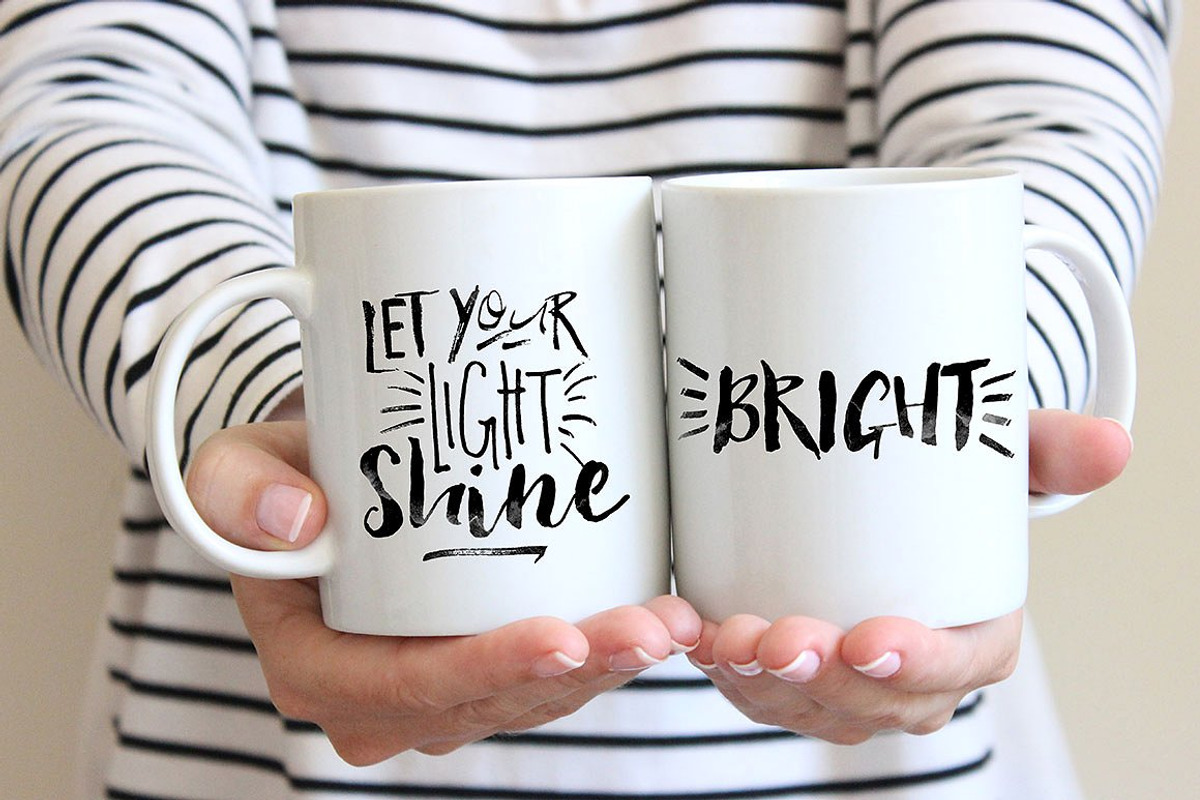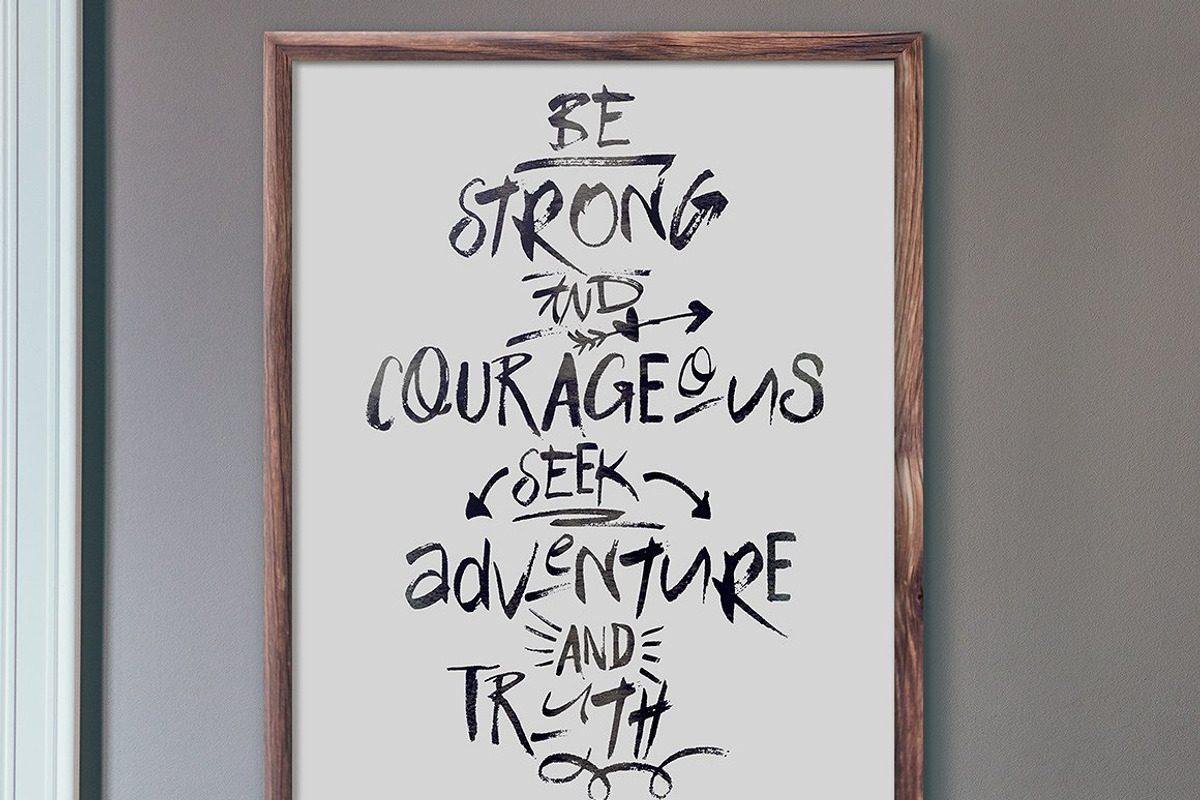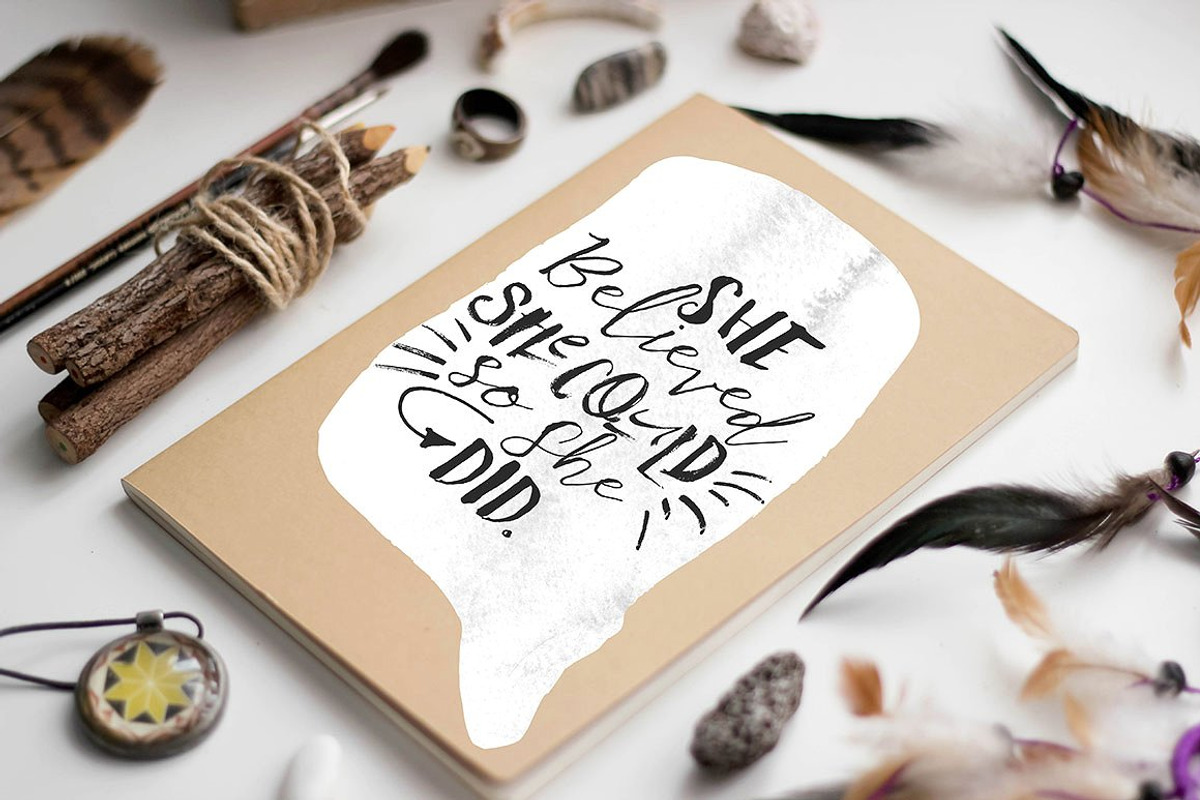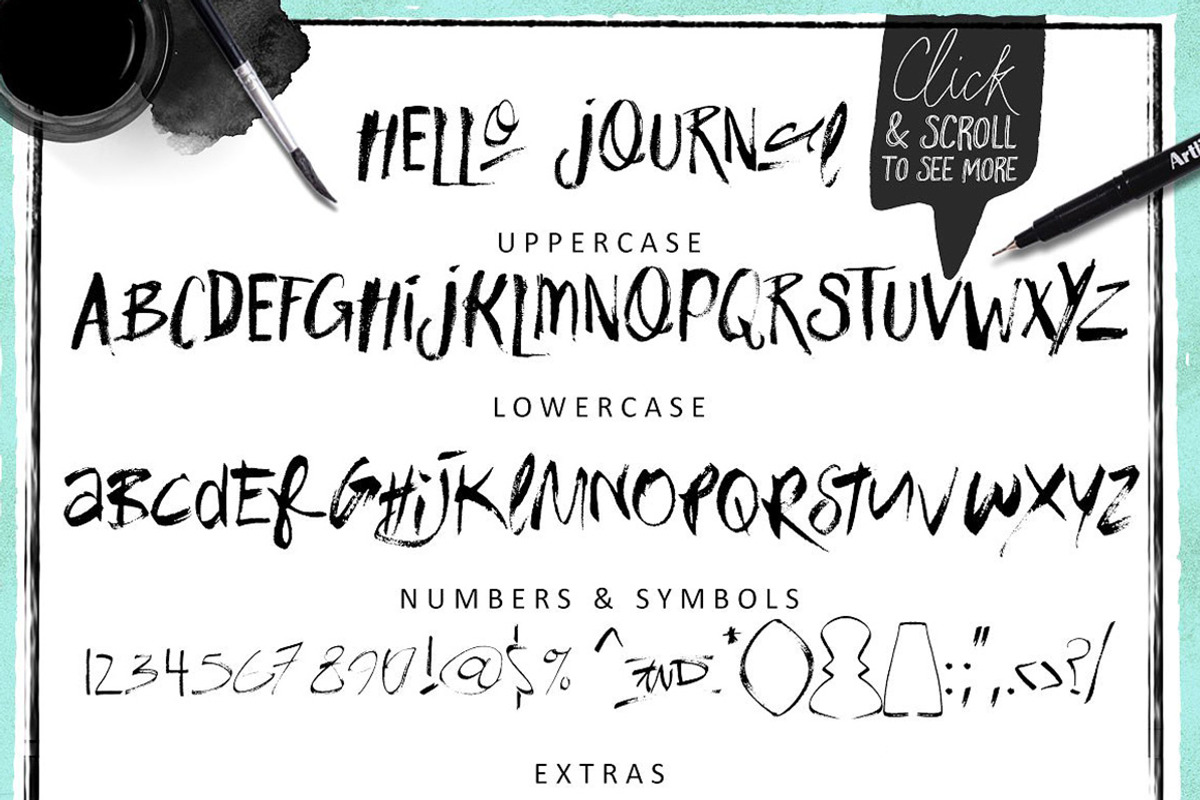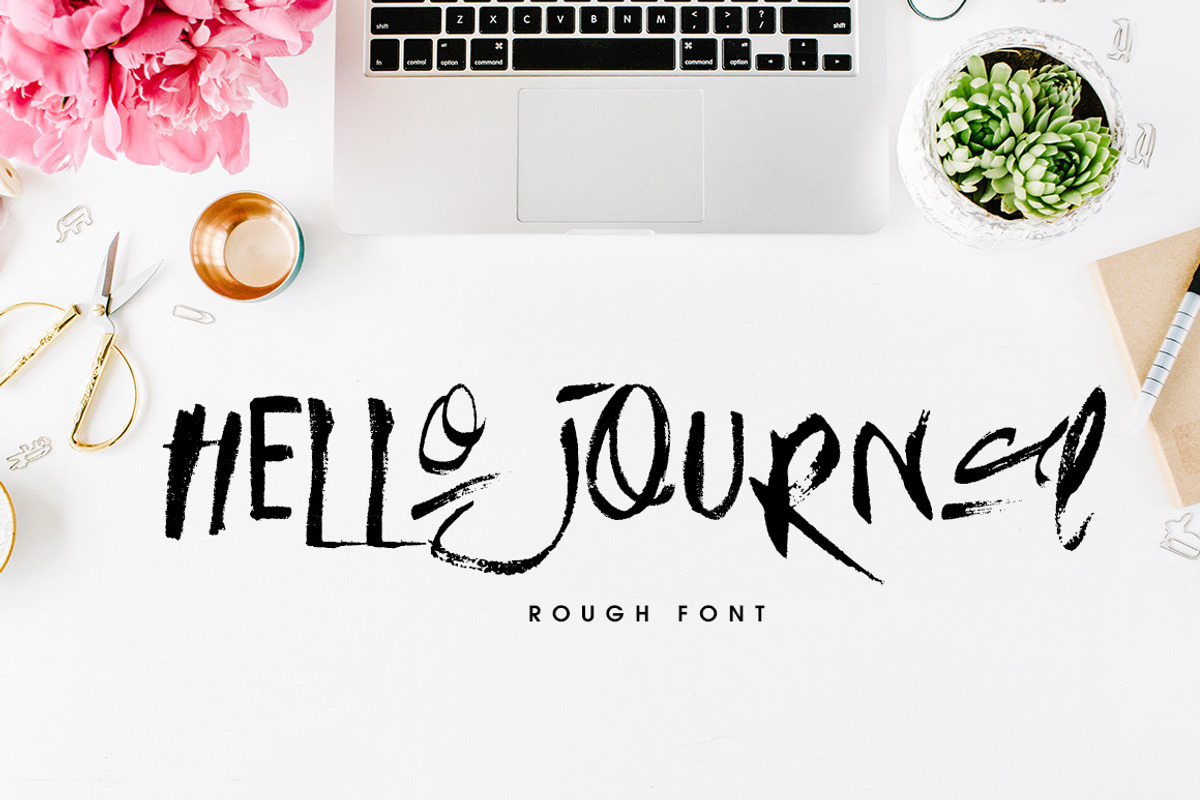
Hello Journal Font
This is Hello Journal. An awesome rough dry brush font, with a bunch of extras. This font is part of the Big Bunch of Fonts Volume 1 here
Why Hello Journal Font is worth a look
Hello Journal Font by Creativeqube Design fits naturally into Branding, posters, packaging, typography.